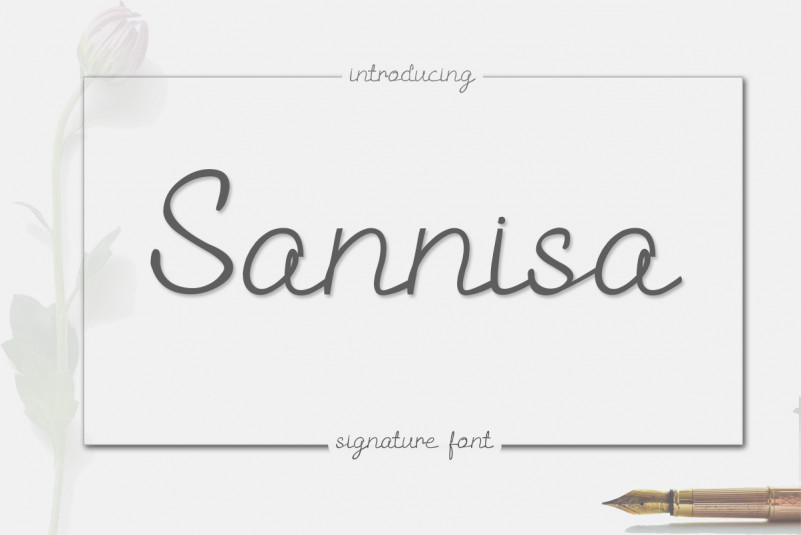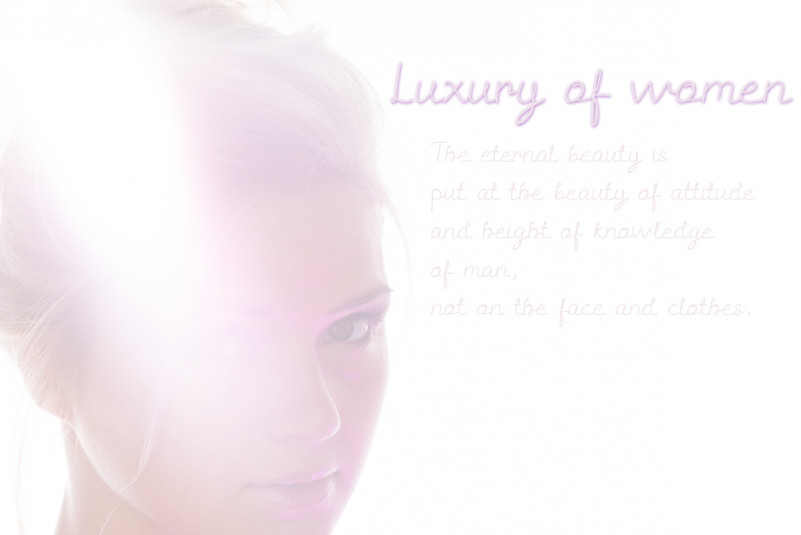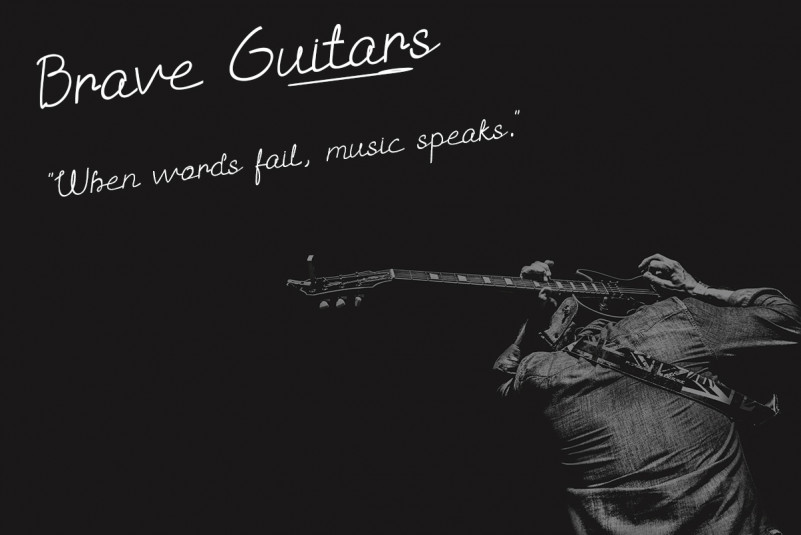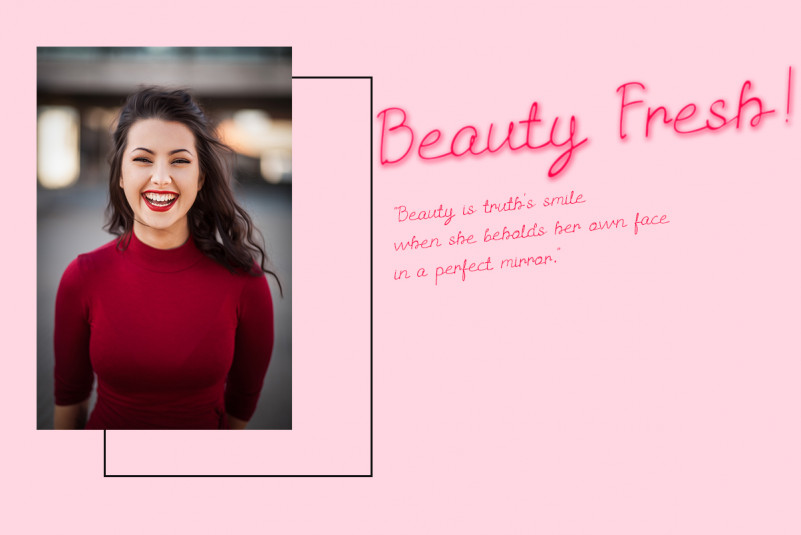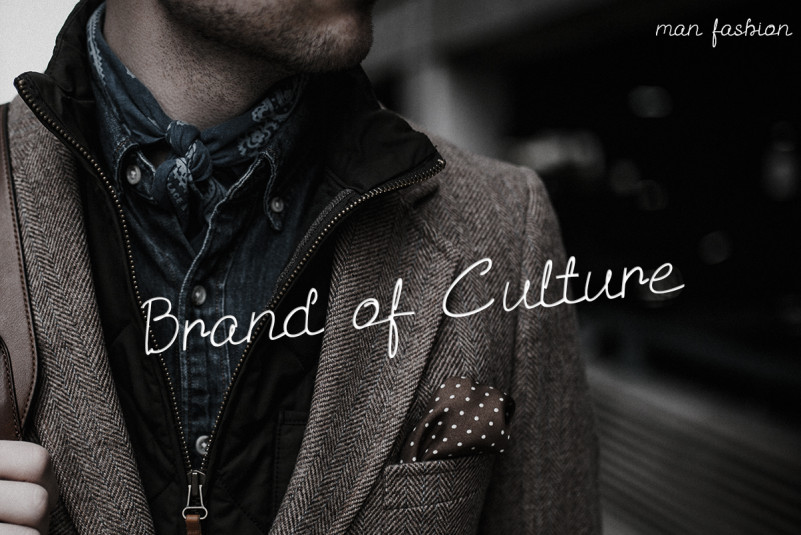
Sannisa Script Font
Sannisa was inspired by a simple script of signature. Sannisa is suitable for font letter, magazine script, font branding a product, using in banner, brocure, poster, daily magazine, etc.